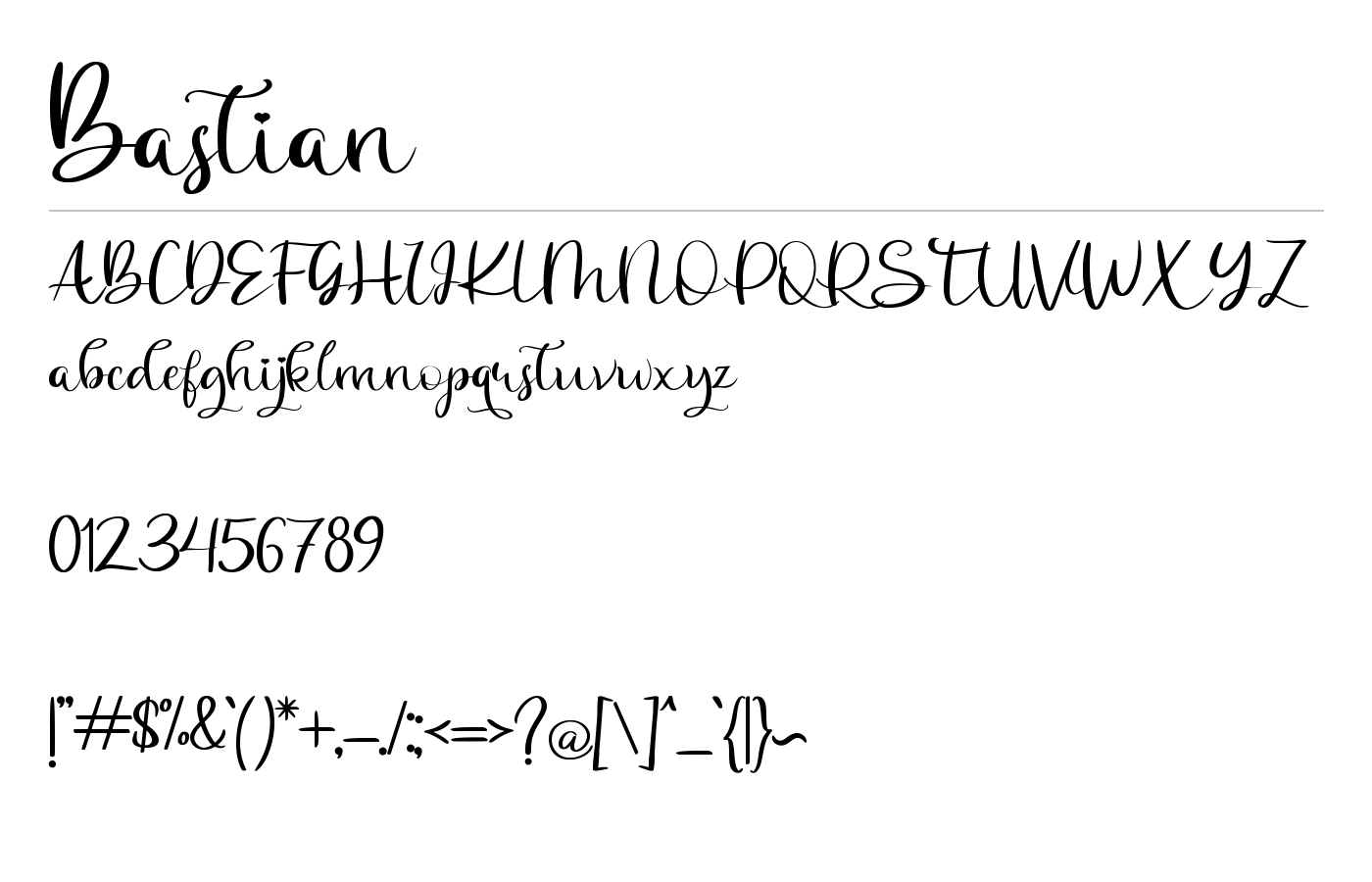
Bastian is a delicate and elegant script font featuring flowing, hand-lettered style characters with charming swirls and heart-shaped details. Its light weight and graceful curves make it ideal for romantic and feminine designs, perfect for branding, invitations, and stylish headlines that seek a personal, artistic touch. This font brings a warm, playful feel while maintaining readability and sophistication.
Bastian Font
About Bastian Font